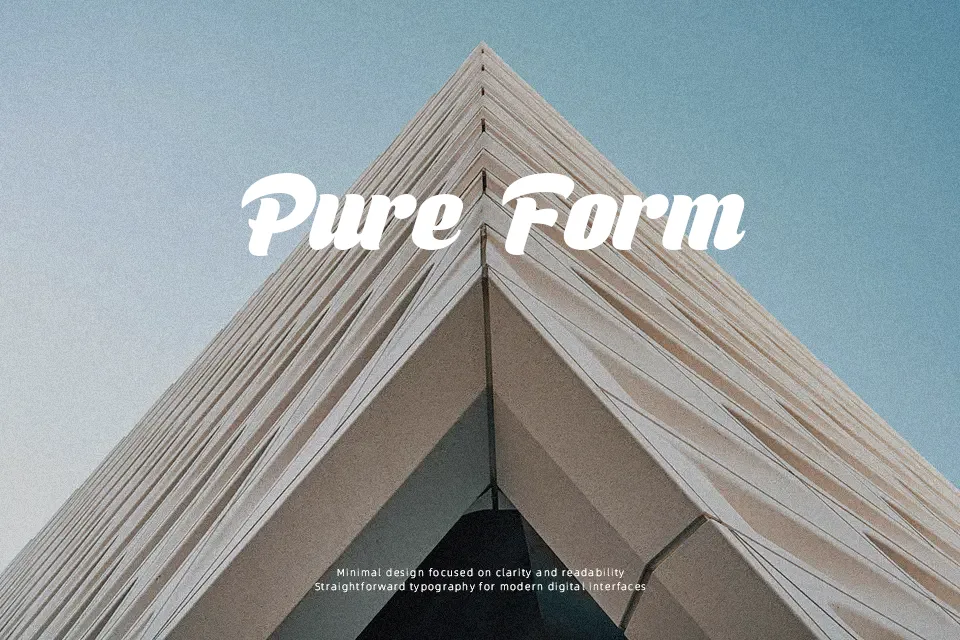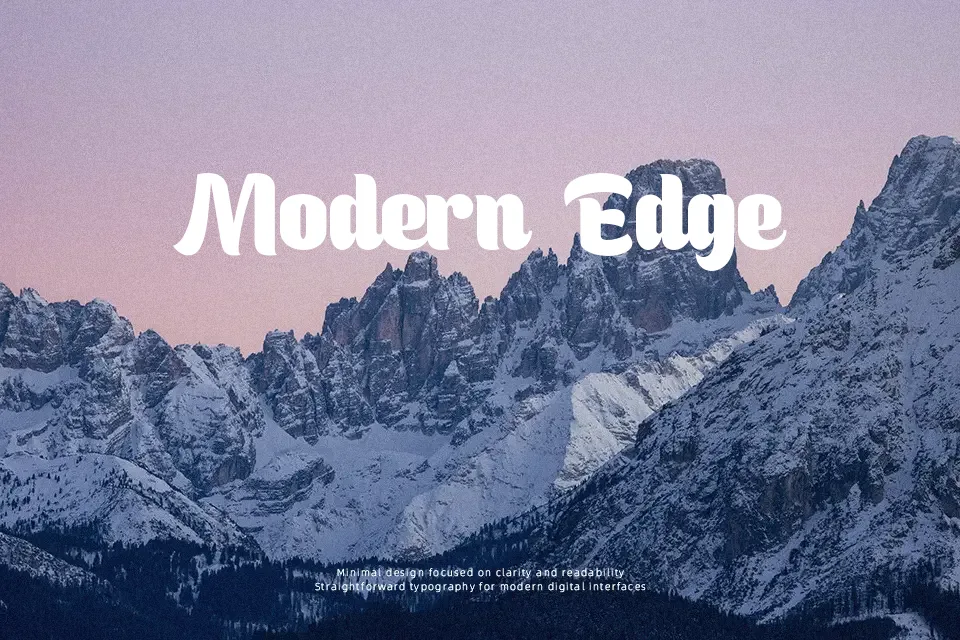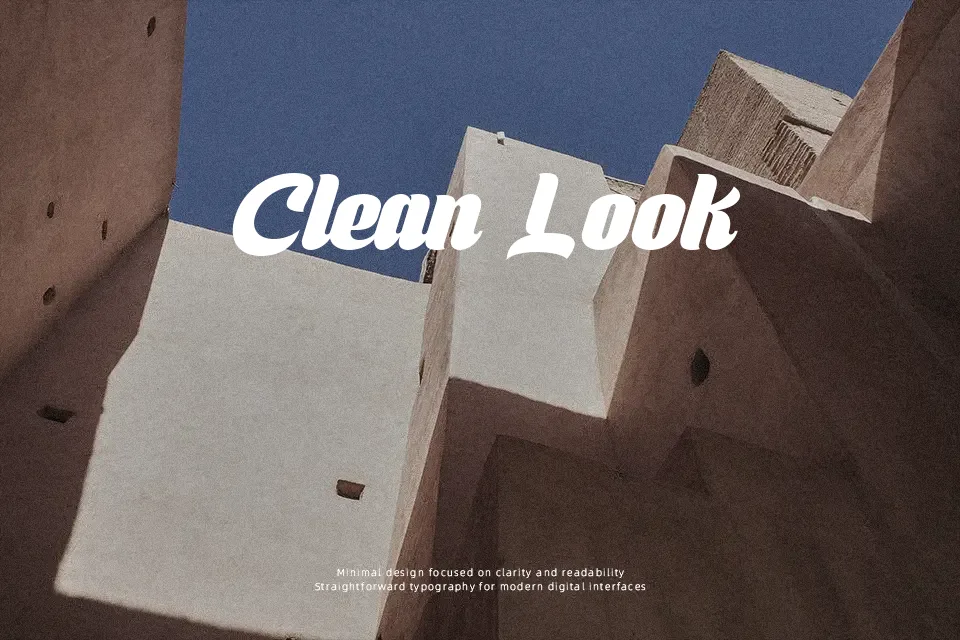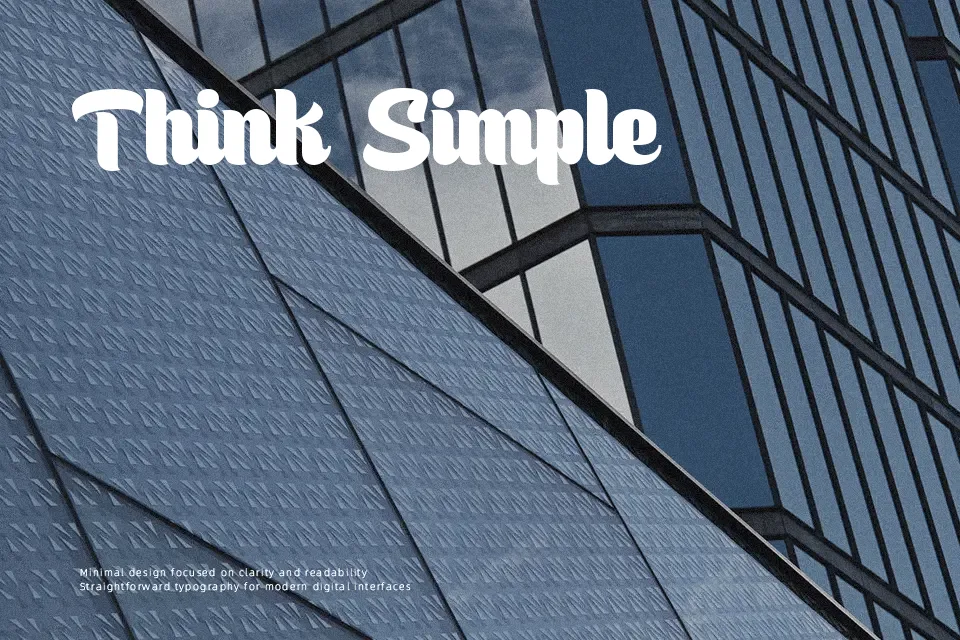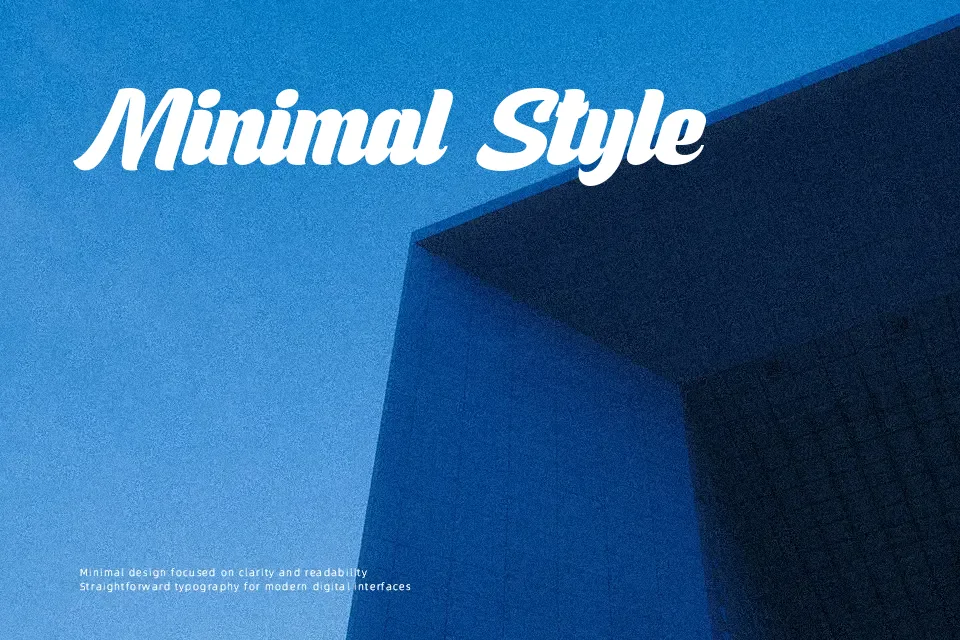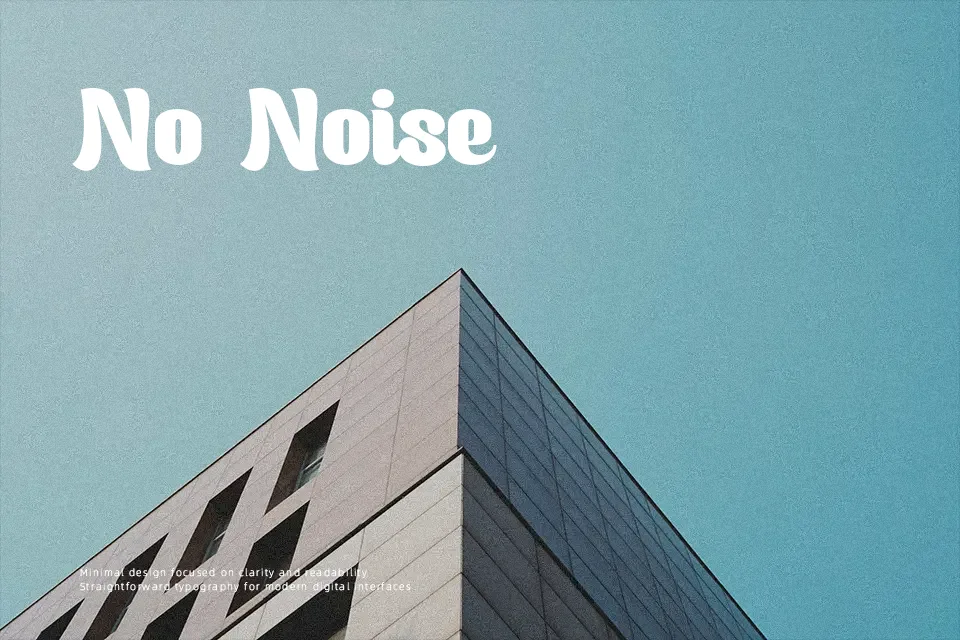
Boldblaster Font
Designed by Sign Studio
Boldblaster by Sign Studio is a vibrant display typeface that successfully bridges vintage groovy aesthetics with modern design needs. Characterized by its heavy, chunky weight and tightly arranged characters, the font delivers a nostalgic punch. The inclusion of both regular and italic styles allows designers to build dynamic, cohesive layouts that feel highly energetic.
This typeface thrives as a central focal point, serving exceptionally well in retro-themed branding, striking apparel graphics, and lively music festival materials. Conversely, the thick strokes and distinct personality mean Boldblaster struggles in small body text or serious corporate environments where high legibility is paramount. It needs sufficient canvas space to truly make an impact.
Retro-themed branding and logotypes
Eye-catching event posters
Groovy apparel and merchandise
Lengthy editorial body paragraphs
Minimalist corporate identities
Small-scale interface design
Perfect for branding, fashion, and logo, with a bold and decorative style.